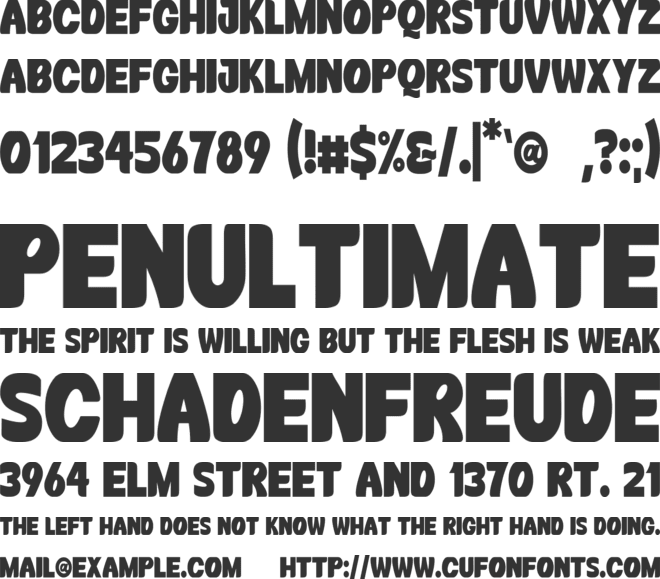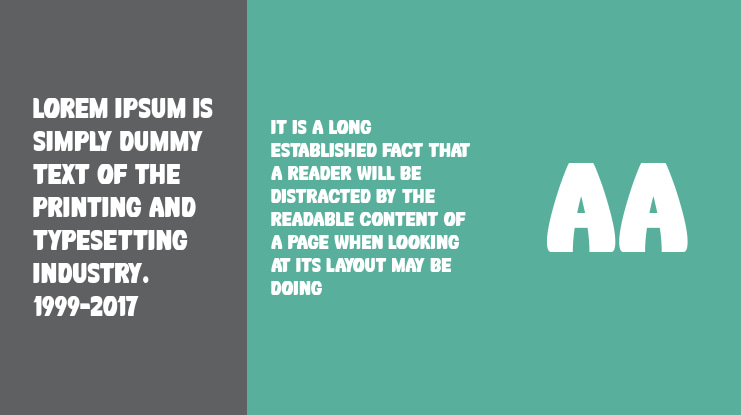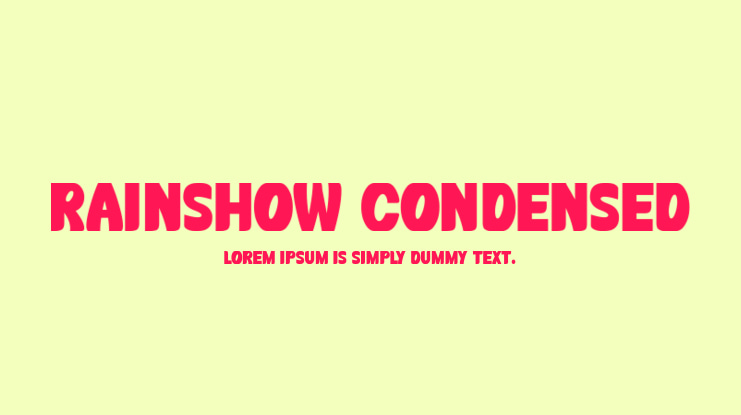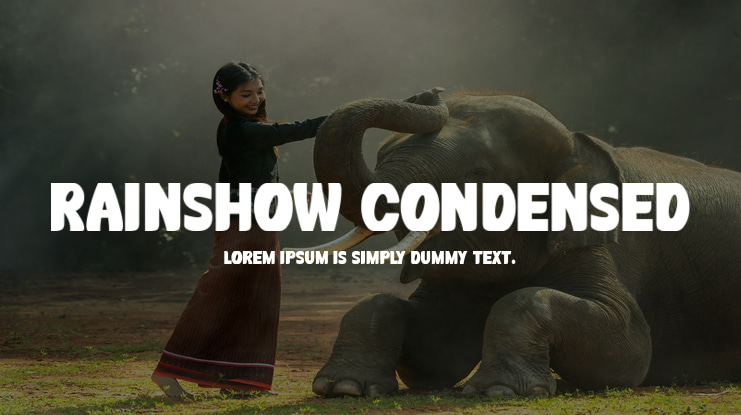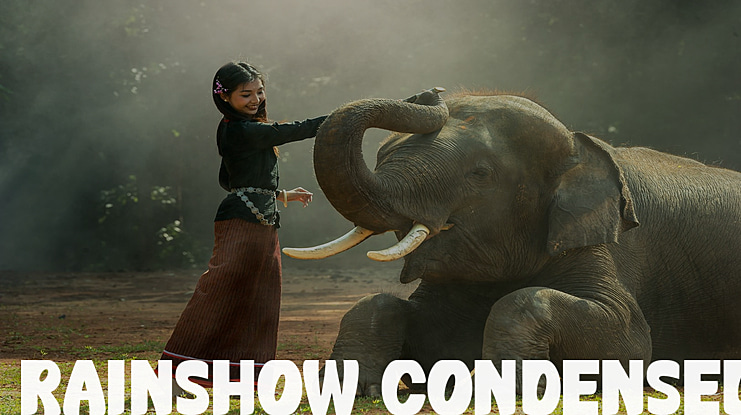
Rainshow Condensed Font Family
About this font:
Rainshow Sans is a dynamic display font ready to be paired with your logo and design. It has four different variations to accommodate every project you are working.
Rainshow Condensed font preview